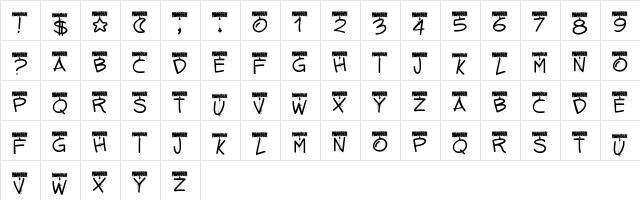
PWTinselLetters Medium Font Preview
PWTinselLetters Medium
Design Context for PWTinselLetters Typeface
PWTinselLetters is a composed and adaptable typeface that performs quietly and consistently across a wide range of design contexts.